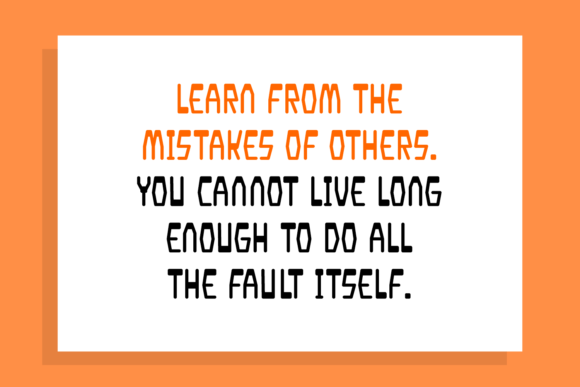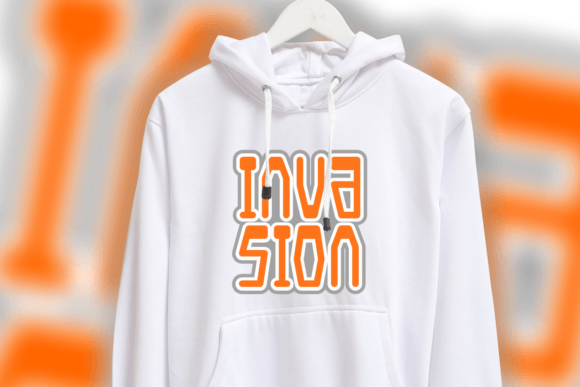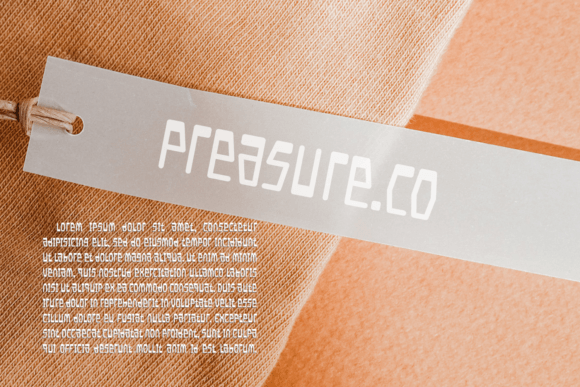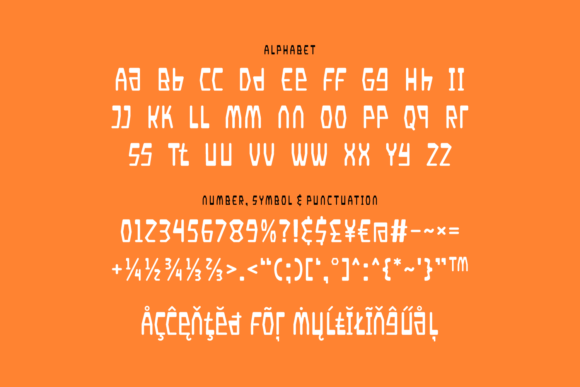
The Designer’s Delight: A Deep Dive into Ailen Font
I still remember the frustration of working on a project, hours pouring into crafting the perfect design, only to hit a roadblock: finding the right font. My client wanted something modern, yet elegant; something that would make their brand stand out. That’s when I stumbled upon Ailen Font, and it was love at first sight! π
Ailen is a clean and unique display font that features a modern design with sharp edges and smooth curves. It has a light and airy feel that makes it stand out in any design. The font is great for headlines, logos, and posters, and itβs perfect for making a statement!
An Honest Review of Ailen Font
What I Love About Ailen Font
- β¨ Modern and Edgy: Ailen’s sharp edges and smooth curves give it a modern and edgy feel that’s perfect for brands looking to make a statement.
- β Highly Versatile: This font is incredibly versatile and can be used for a wide range of design projects, from headlines and logos to posters and more.
- π‘ Excellent Legibility: Ailen’s clean design ensures that it’s highly legible, even at smaller sizes.
While Ailen Font is an excellent choice for many design projects, there are a few quirks to be aware of:
- π€ Limited Use for Body Text: Due to its light and airy feel, Ailen Font may not be the best choice for body text. It’s best used for headlines and titles.
- β οΈ Requires Attention to Kerning: As with any font, kerning is crucial to ensure that Ailen looks its best. Be sure to adjust the kerning to suit your design.
- Experiment with OpenType features, such as glyphs and stylistic alternates, to add more creativity to your design.
- Take advantage of OpenType features, such as ligatures and stylistic sets, to add more visual interest to your design.
The Backstory of Ailen Font
Ailen Font was designed with the goal of creating a modern and versatile font that would meet the needs of designers and brands. The designer, inspired by the beauty of clean lines and simple shapes, crafted Ailen to be a go-to font for headlines, logos, and posters.
| Author | Faris (7NTypes) |
Q: What type of projects is Ailen Font best suited for?
A: Ailen Font is best suited for projects that require a modern and elegant feel, such as headlines, logos, and posters.
Q: Can I use Ailen Font for body text?
A: While Ailen Font can be used for body text, it’s not recommended due to its light and airy feel. It’s best used for headlines and titles.
Q: Is Ailen Font available in different weights?
A: Yes, Ailen Font is available in different weights, making it versatile for a range of design projects.